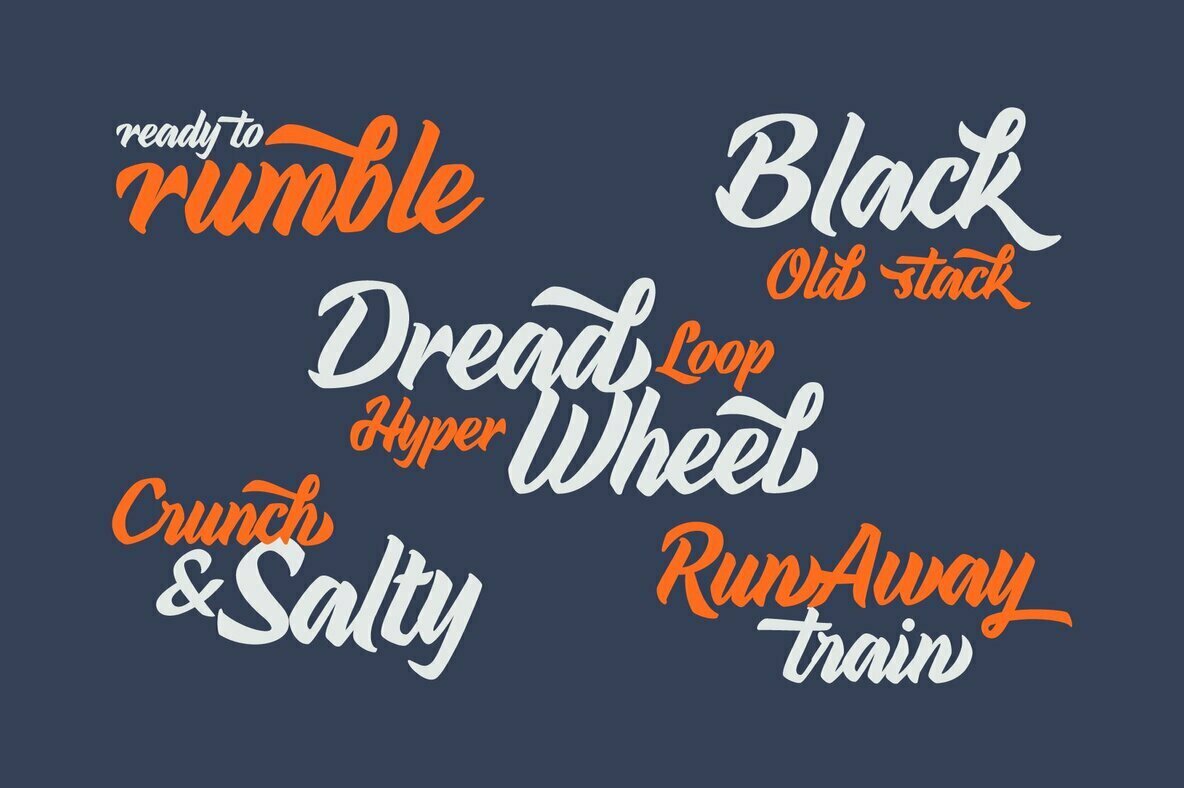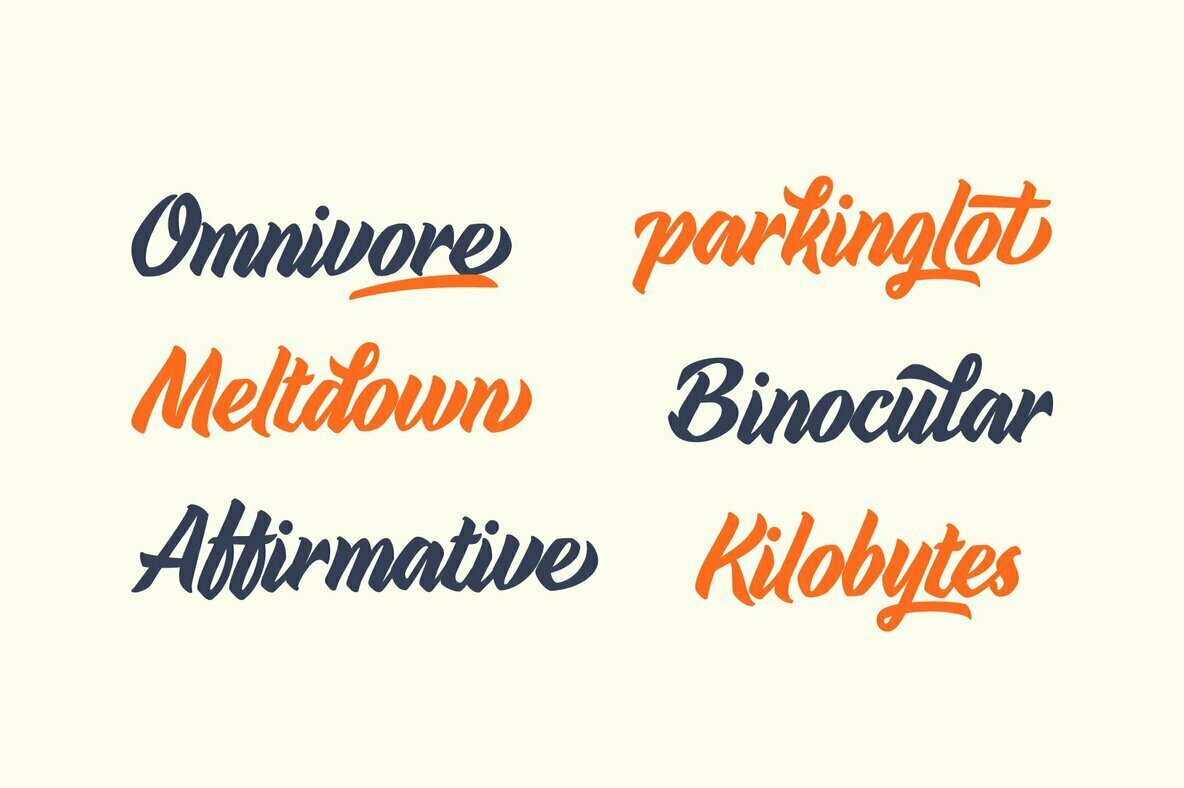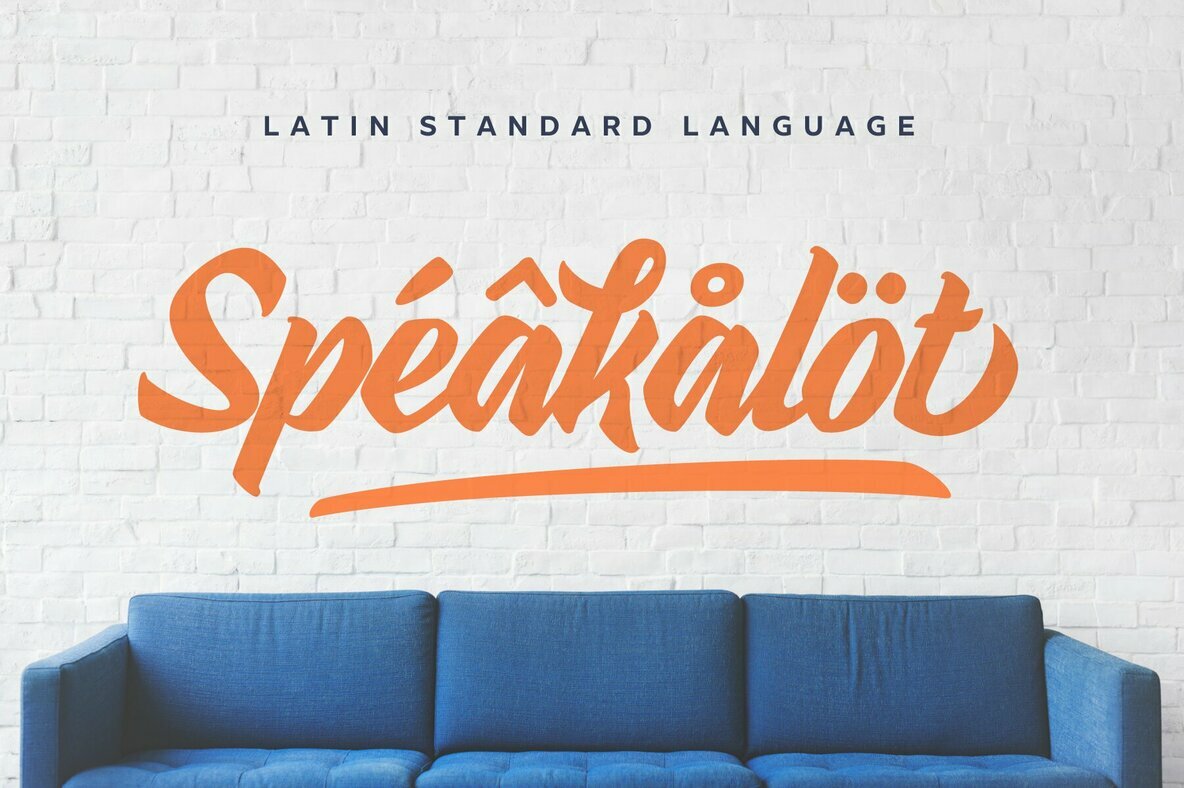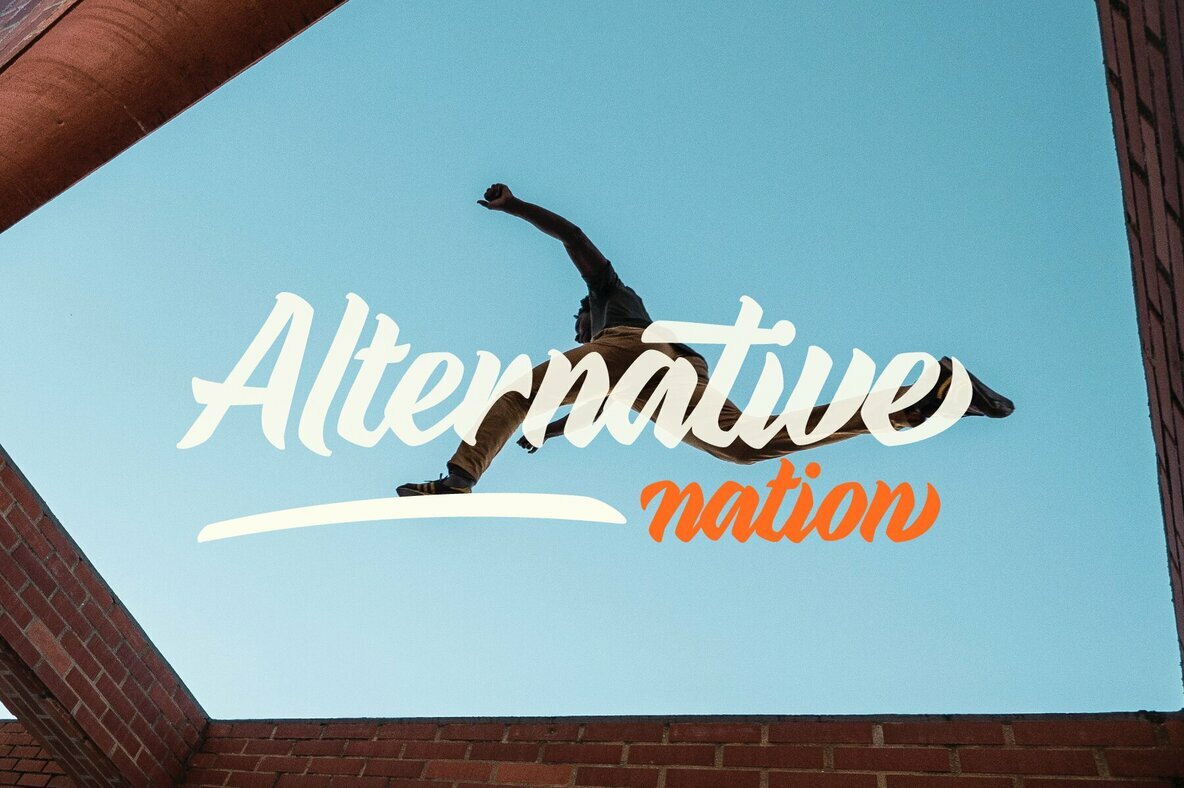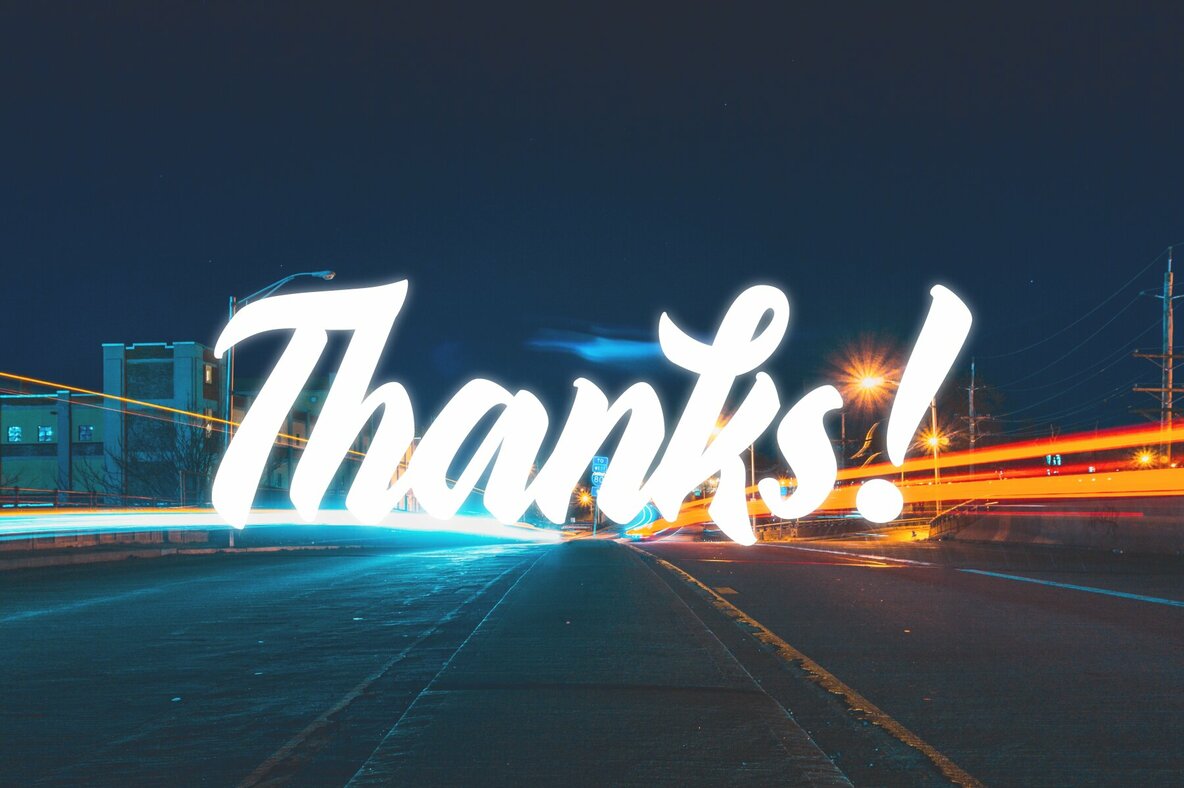
Urbax Font
Urbax Regular
Urbax; Bold expressive script for urban people and urban projects. Fit for Logos, Brand, Titling, Shirt, Hoodie, Products, Signage, Prints and Various Creative Projects. Contain 5 stylistic sets with lot of alternates. Contain basic latin multilanguage support.